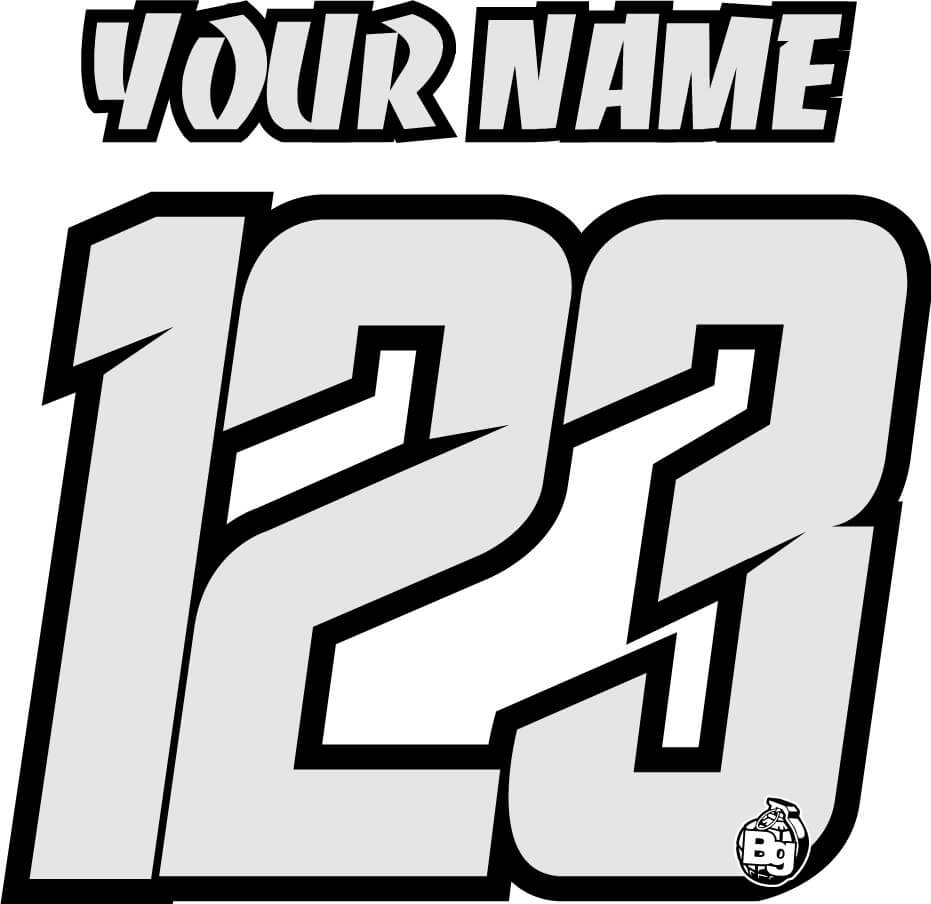
Incredible Motocross Jersey Fonts Ideas
Incredible Motocross Jersey Fonts Ideas. Thor used ethnocentric, tedescoe's #9 is eurostyle, sinisalo used klingon blade, tld last year used sarah script and eurostyle, etc. Font identification looking to identify this font (motocross jersey) go to solution solved by gecko, december 5, 2019.
Font Identification Looking To Identify This Font (Motocross Jersey) Go To Solution Solved By Gecko, December 5, 2019.